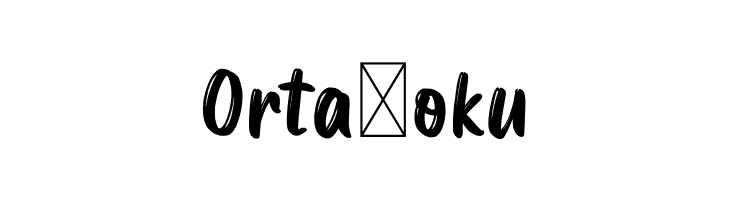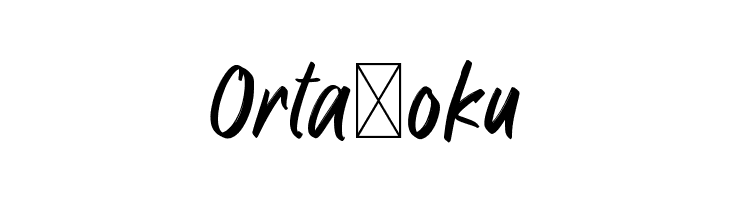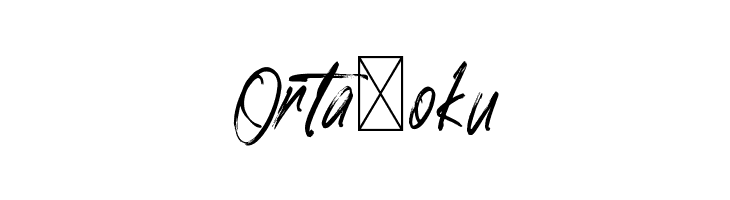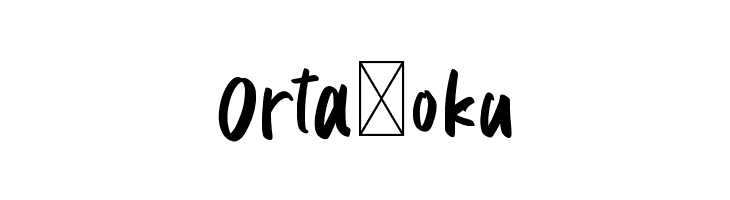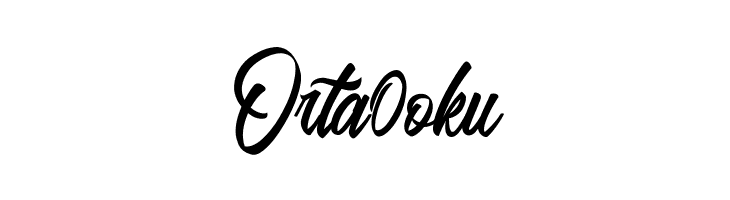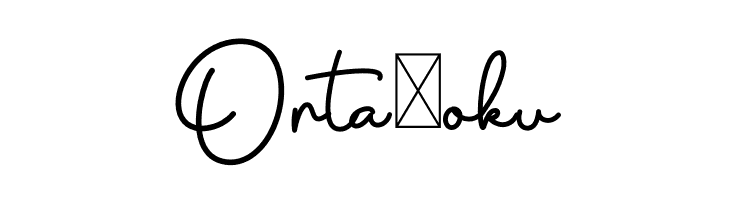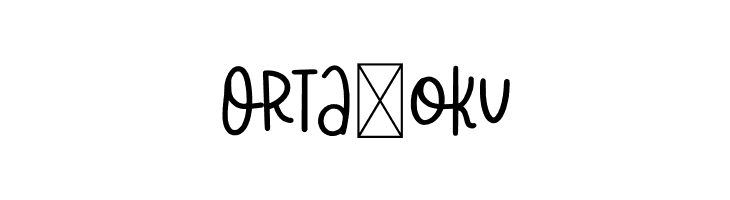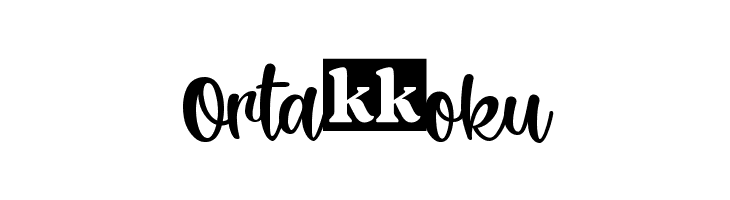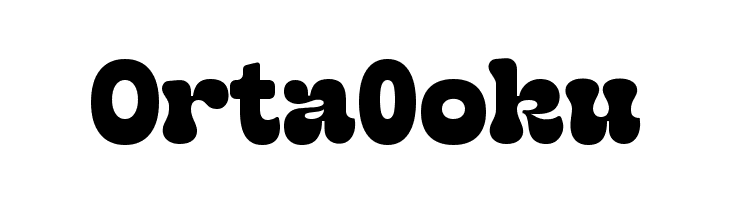
A fluid and elegant script font with a handwritten signature style.
A dynamic brush script font with expressive, hand-painted style.
A bold, expressive handwritten font with fluid, dynamic strokes.
A dynamic and expressive cursive script font with flowing strokes.
A dynamic handwritten font with fluid strokes and a playful, elegant flair.
A playful, handwritten font with tall, narrow letterforms and a casual style.
A bold, expressive script font with flowing, connected strokes.
( Fonts by Kotak Kuning Studio )
A playful handwritten font with rounded, irregular letterforms.
( Fonts by Kulokale Studio )
A bold, playful font with a bubble-like, decorative style.